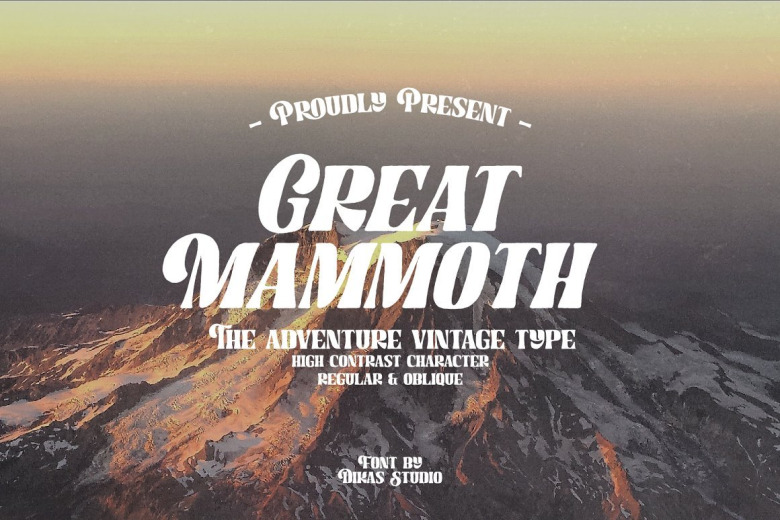
Great Mammoth Font
Great Mammoth Display Font is a hand-drawn display typeface manufactured by Andika Setiawan. Great Mammoth comes with classic and vintage impression. They have a rough character with handdrawn touch. The Great Mammoth have 2 style : regular and oblique. It’s very suitable for vintage, retro and adventure theme design such as logo, branding, badge, label, t-shirt, merchandise etc.